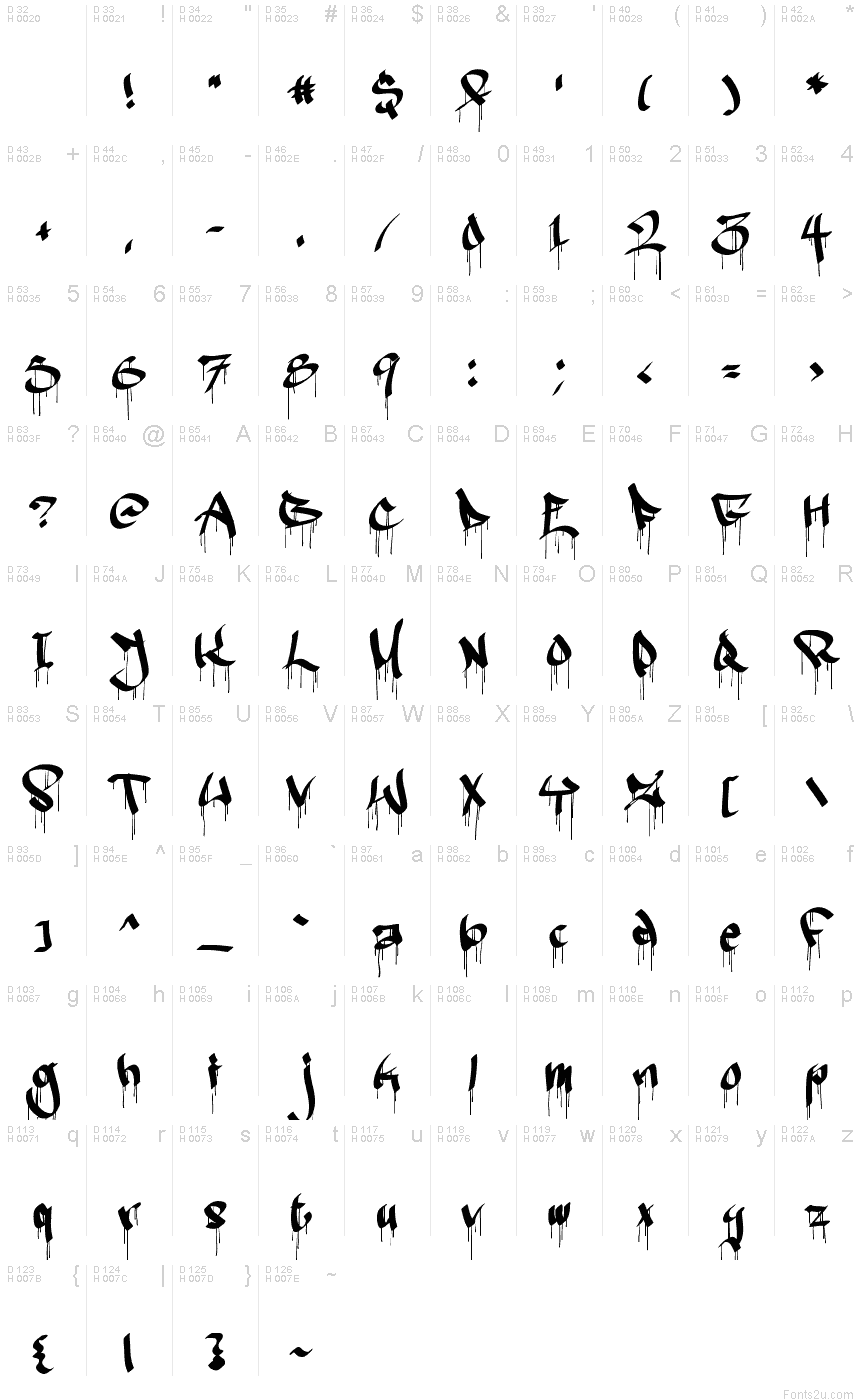
Ruthless Drippin TWO by Måns Grebäck is a free graffiti script with a sharp, confrontational silhouette. Broad, slashing strokes crowd together, with sudden cuts and pointed turns breaking up the forms. Long paint drips are the signature detail.
Music merchandise is an obvious home for its mix of speed, menace, and wet-paint texture. It also suits horror posters, streetwear graphics, and event flyers built around an underground aesthetic. For skate labels, the dripping letters can become a recognizable brand mark.